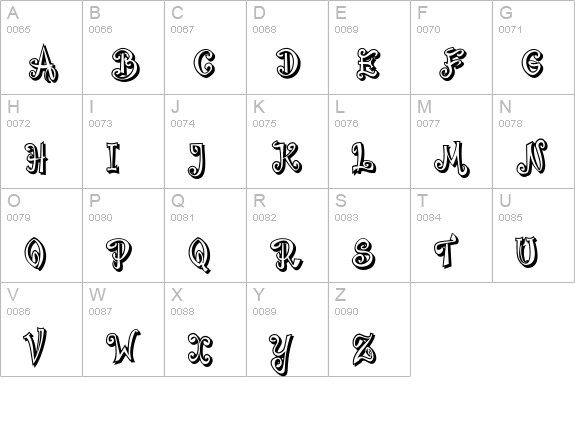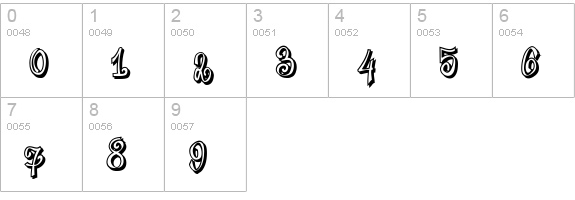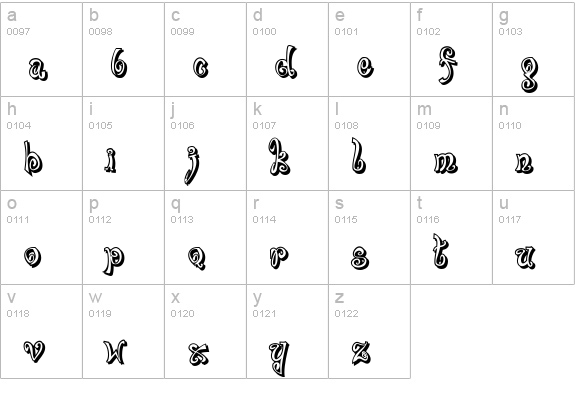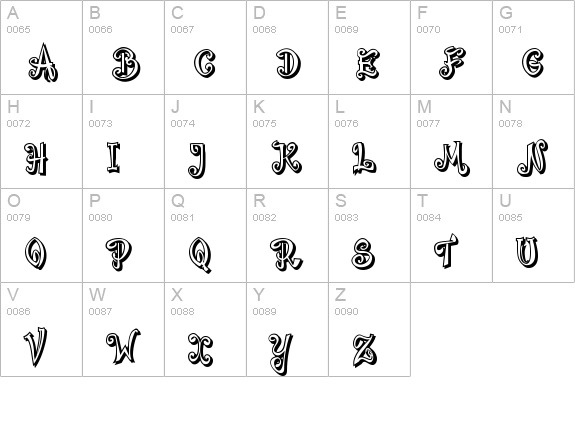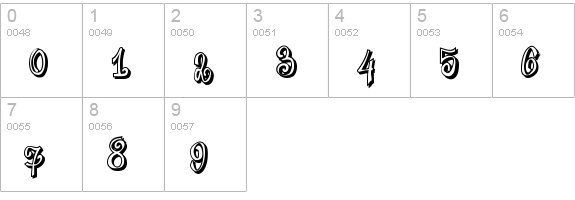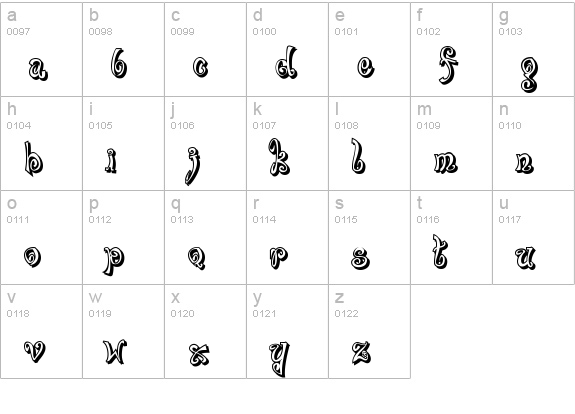
Bajareczka Shadow Font Details
Bajareczka Shadow font exudes a unique blend of elegance and playfulness, making it perfect for a wide range of design projects. This versatile typeface features stylish shadow effects that add depth and dimension to your text. Each letter is carefully crafted with intricate details, giving your designs a sophisticated touch. Whether you're working on branding, invitations, posters, or any other creative endeavor, Bajareczka Shadow font is sure to make a statement. The best part? This stunning font is completely free to download at FontsMarket.com! Take advantage of this amazing offer and enhance your designs with the beauty of Bajareczka Shadow font. Elevate your projects with this eye-catching typeface and let your creativity shine.